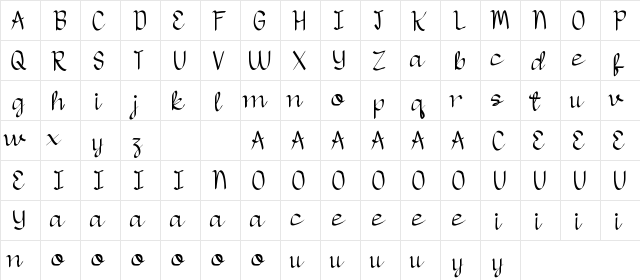
Wooslight Demo Regular
| Foundry | Edric Studio |
| Designer | Deyan & Suci Anita |
Design Context for Wooslight Demo Typeface
Wooslight Demo is a composed and adaptable typeface that performs quietly and consistently across a wide range of design contexts. Its slender proportions lend an understated elegance to any composition.
Pro Tip: Use Wooslight Demo in both headline and body roles to test its range before committing to a single application.